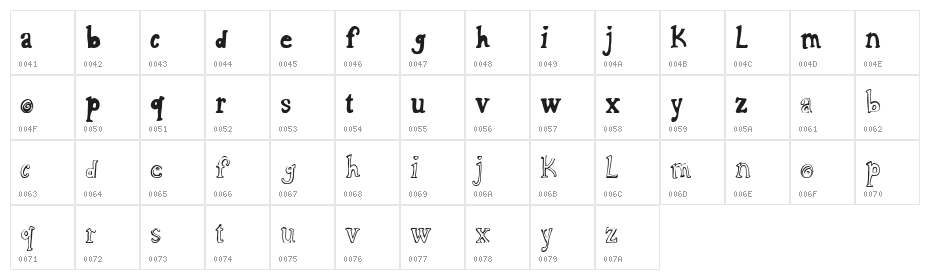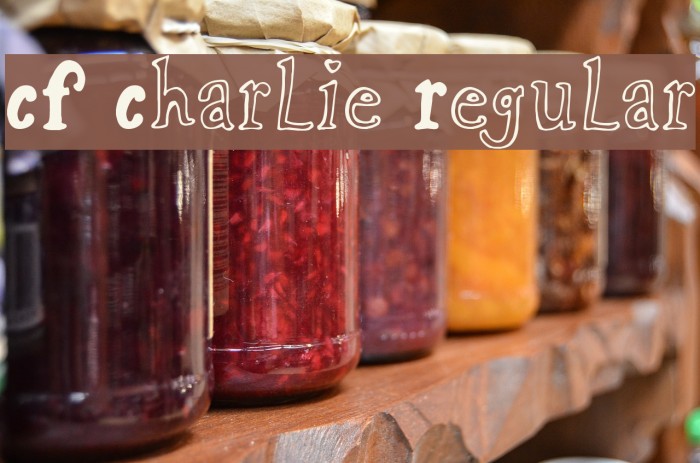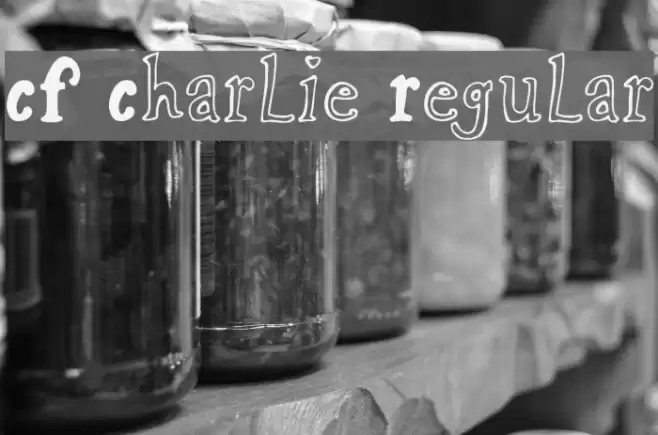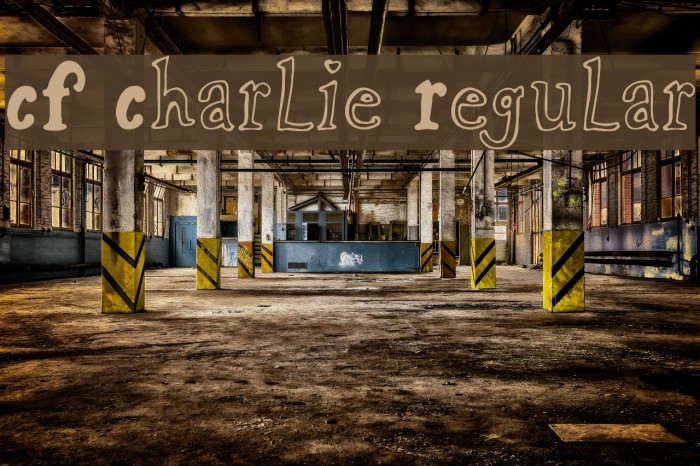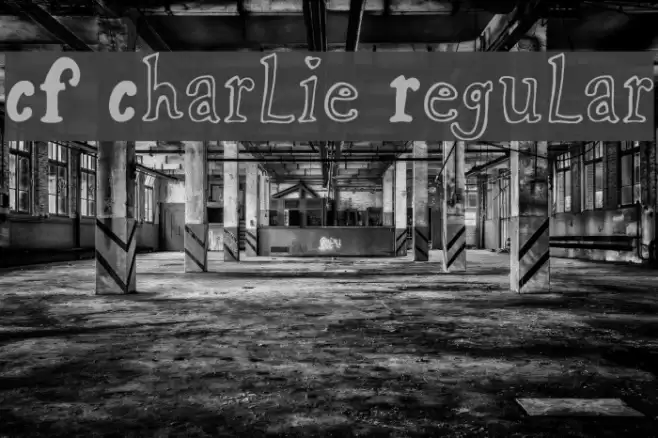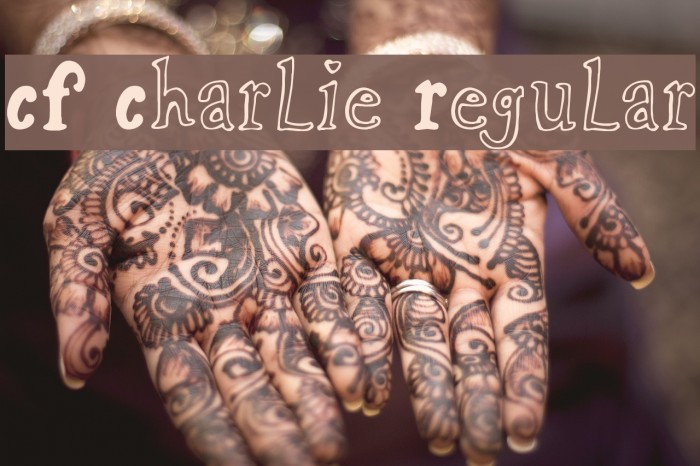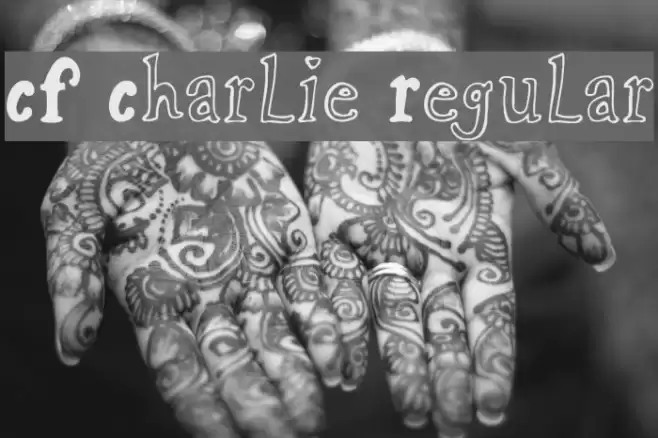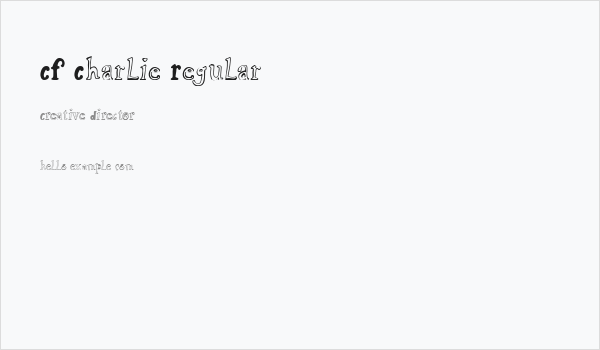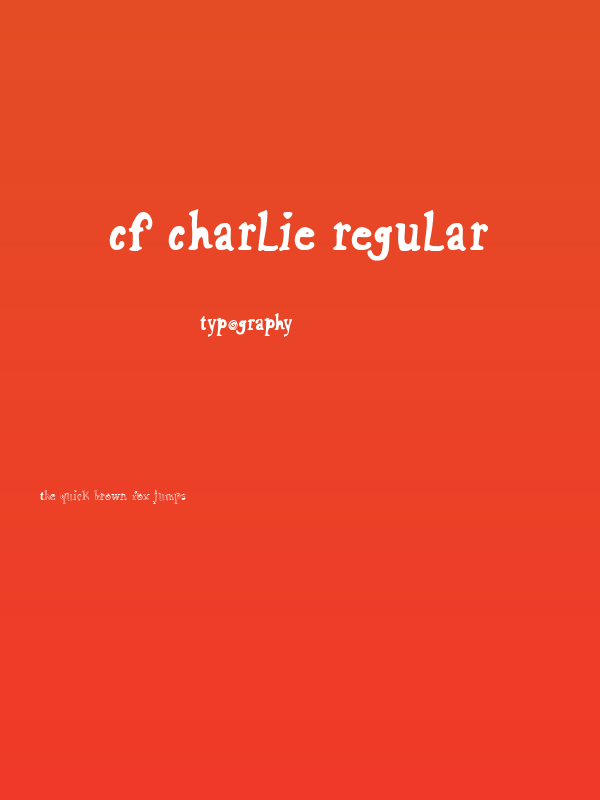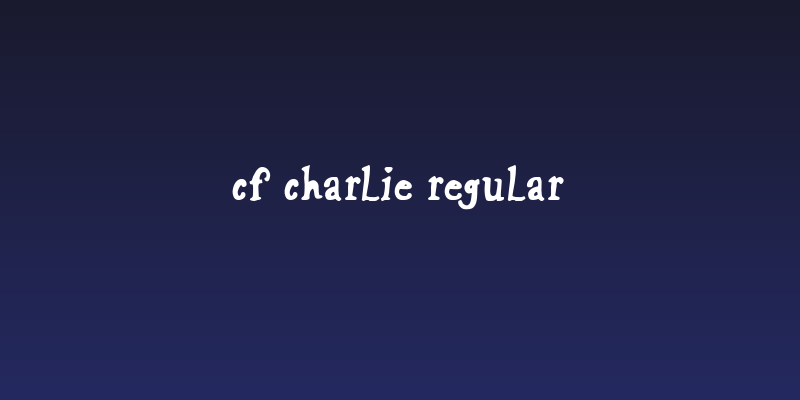
CF Charlie Regular Font
CF Charlie Regular Description
This playful and whimsical font features a unique, hand-drawn style with irregular shapes and a quirky personality. The letters have a slightly uneven baseline, adding to the casual and fun appearance. The strokes vary in thickness, giving the font a dynamic and lively feel. The lowercase letters have a charming, almost cartoonish quality, while the uppercase letters maintain a bold presence. The font's distinctive character makes it stand out, perfect for creative and informal projects.
| Overall Style | Whimsical, Playful, Creative |
| Proposed Projects | Ideal for children's books, comic strips, playful branding, and creative posters. |